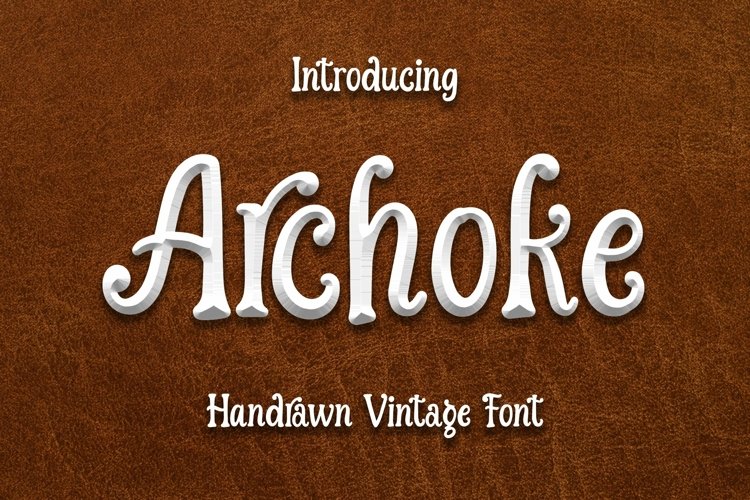
Archoke - Handrawn Vintage Web Font that contain lowercase, uppercase, symbol, and also support multi language. There’s a lot ligatures in this font. This Font also comes with ligatures, alternates and many more. this font suitable for fashion, branding, catalog and other design what you want.